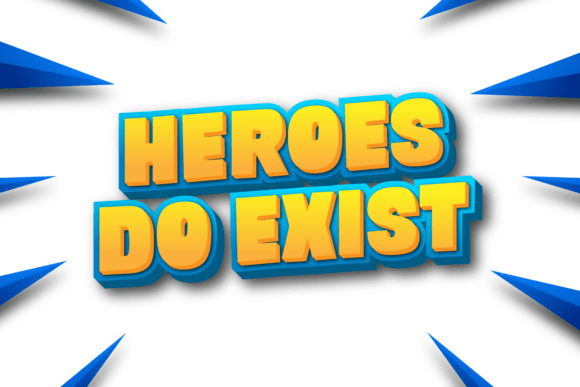
In a world filled with digital monotony, Heroes Do Exist Font bursts onto the scene, a breath of fresh air for your creative endeavors. Designed with the soul of a comic book artist, this display font is an explosion of fun and flair that will set your projects apart from the crowd.
Picture this: bold, chunky characters dancing across your screen, each letter a stroke of genius, a work of art. Heroes Do Exist isn't just a font; it's an invitation to embark on a creative adventure, to bring your wildest ideas to life.
Its playful nature makes it a perfect fit for posters, book covers, and headlines that demand attention. Imagine your words�動off the page, captivating your audience with their playful energy.
And oh, the possibilities are endless! Create t-shirts that speak to the superhero within, design games that transport players to worlds unknown, and let your imagination run wild. Heroes Do Exist is your creative sidekick, ready to elevate your projects to new heights.
So, whether you're a seasoned designer seeking a fresh perspective or a budding artist yearning to make your mark, let Heroes Do Exist be your guide. Unleash your inner hero and let your creativity take flight.